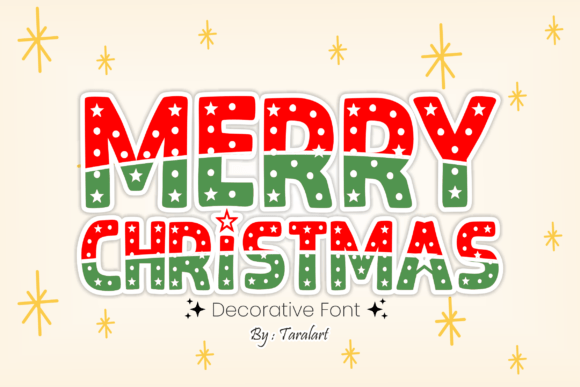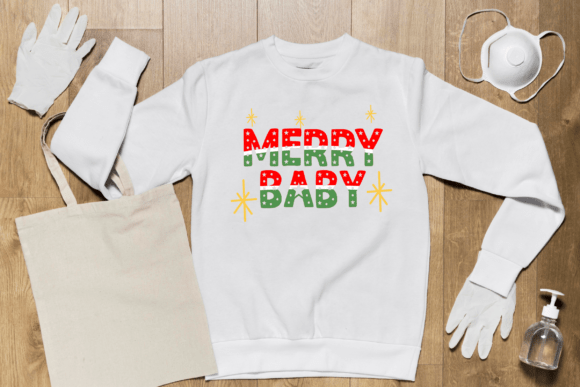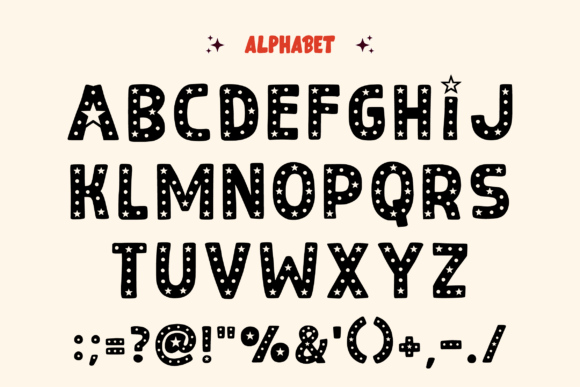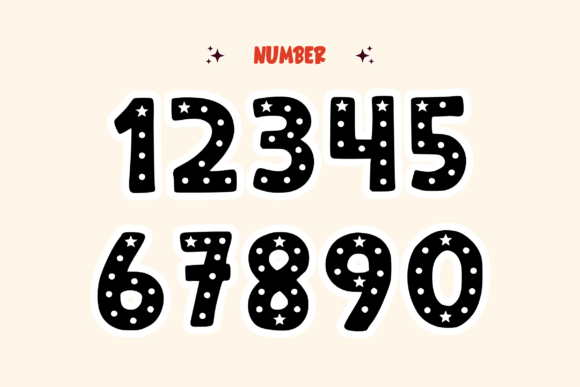
Unveiling “Hello Christmas”: The Ultimate Festive Font for Your Holiday Creations
The holiday season is upon us, and with it comes the opportunity to infuse our designs with a dash of cheer and festivity. For designers and crafters looking to add a touch of Christmas magic to their work, we are thrilled to introduce “Hello Christmas”, an enchanting, festive-centric typography that is sure to bring your creations to life.
What Makes “Hello Christmas” So Special?
“Hello Christmas” is more than just a font – it’s an experience. This delightful typeface features fresh and spirited characters that promise easy identification and a playful vibe that’s perfect for the holiday season. Whether you’re looking to embellish t-shirts, mugs, tote bags with sublimation designs, bring animations to life, or invigorate comic titles, “Hello Christmas” is the ideal choice.
With “Hello Christmas”, the possibilities are endless. Imagine creating stunning holiday-themed merchandise, such as:
- T-shirts and hoodies with festive designs that will make you stand out from the crowd
- Mugs and water bottles that spread cheer and joy with every sip
- Tote bags and accessories that add a touch of holiday magic to your daily routine
- Animations and videos that come to life with the vibrant spirit of the holiday season
- Comic titles and graphics that pop with the playful vibe of “Hello Christmas”
Bringing Your Creativity to Life
“Hello Christmas” is designed to help you unleash your creativity and bring your ideas to life. With its easy-to-use characters and festive vibe, you can:
- Create stunning holiday-themed designs in minutes
- Experiment with different colors and patterns to match your brand or personal style
- Add a touch of personality to your designs with the font’s playful characters
Why Choose “Hello Christmas”?
So, why choose “Hello Christmas” over other fonts? Here are just a few reasons:
- Unique and festive design that’s perfect for the holiday season
- Easy-to-use characters that make designing a breeze
- Versatile and compatible with a range of design software and platforms
- Perfect for designers and crafters of all skill levels
Get Ready to Spread Cheer with “Hello Christmas”
| Author | TaralArt |